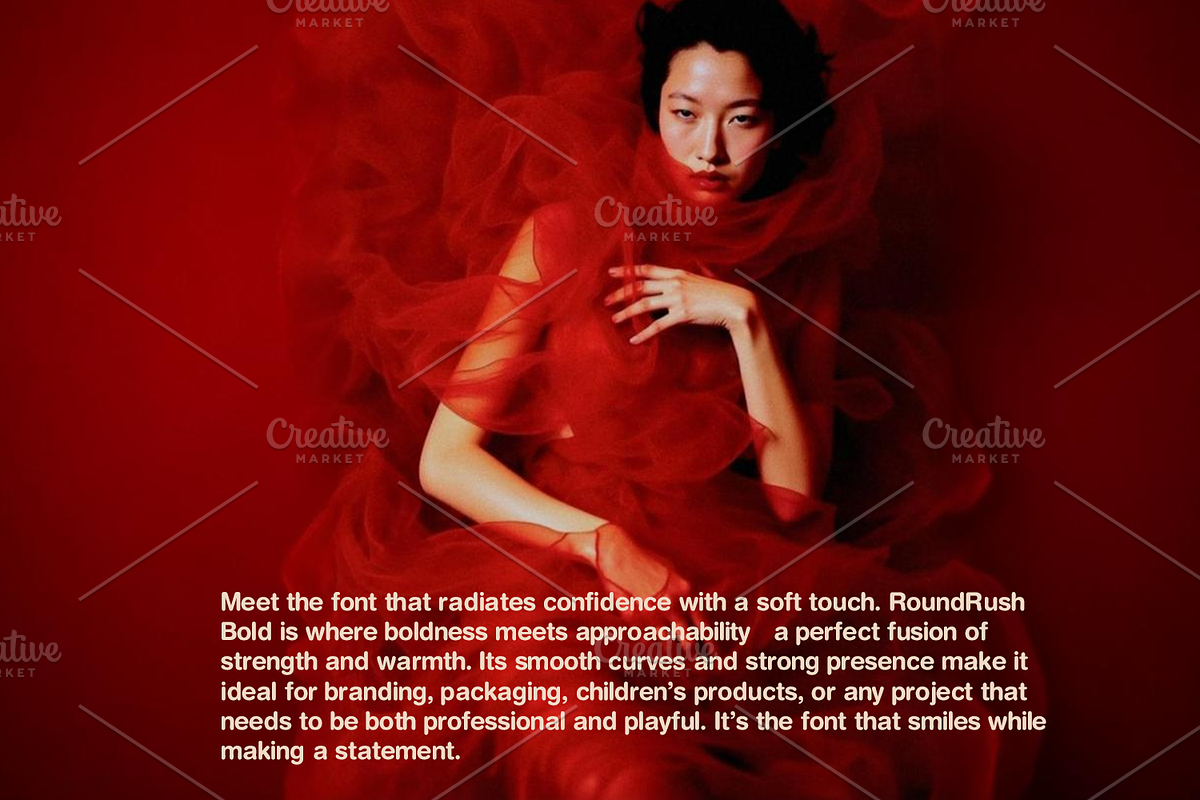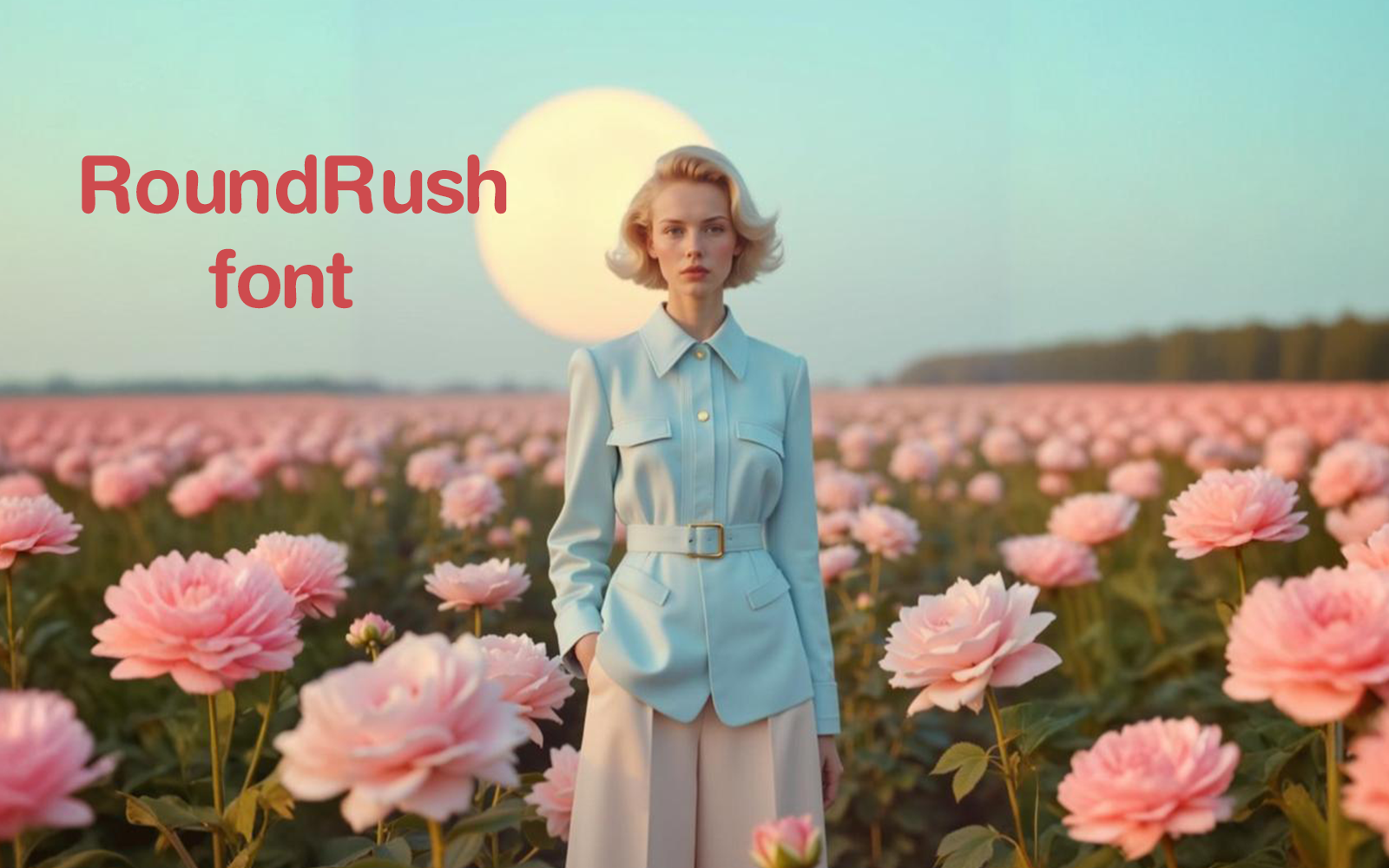
Meet the font that radiates confidence with a soft touch. RoundRush Bold is where boldness meets approachability — a perfect fusion of strength and warmth. Its smooth curves and strong presence make it ideal for branding, packaging, children’s products, or any project that needs to be both professional and playful. It’s the font that smiles while making a statement.